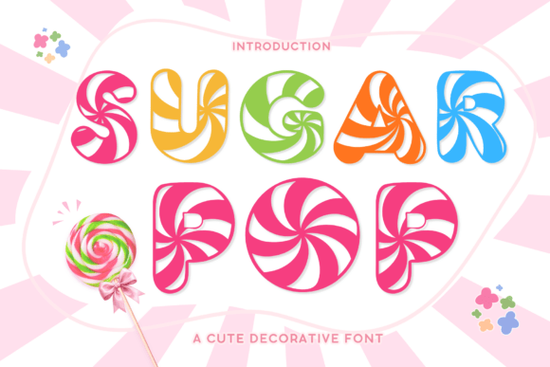
If you've been looking for a fun, candy-inspired typeface that brings instant personality to your designs, the Sugar Pop Font is worth a closer look. This playful display font draws inspiration from candy swirls and sweet treats, making it a solid choice for holiday crafts, kids' projects, party invitations, food packaging, and cheerful branding. Whether you're a crafter selling on Etsy or a small business owner creating marketing materials, this font adds a lighthearted, eye-catching touch without much effort.
What Makes the Sugar Pop Font Stand Out?
Plenty of decorative fonts claim to be "fun," but the Sugar Pop Font actually delivers on that promise. Its rounded letterforms and candy-like curves give it a distinctly sweet personality that works well at larger sizes. Unlike some overly stylized fonts that sacrifice readability, this one stays clear enough for titles, headers, and short text blocks.
Here's what you can expect:
- Bold, rounded characters that pop off the page
- A playful, whimsical style suited for lighthearted themes
- Works well for both print and digital projects
- Pairs nicely with simpler sans-serif or handwritten fonts for contrast
It's especially effective for designs targeting families, kids, or anyone who appreciates a bit of sweetness in visual branding.
Who Should Use This Font?
This font isn't limited to one type of creator. Here are a few people who could put it to good use:
- Print-on-demand sellers designing t-shirts, mugs, or tote bags with candy-themed or party-related graphics
- Small bakery owners creating logos, menu headers, or packaging labels
- Party planners and event businesses making invitations, banners, or signage
- Teachers and parents working on classroom decorations or birthday party materials
- Crafters who sell handmade cards, stickers, or scrapbook elements
If your work involves themes like birthdays, holidays, sweets, or anything kid-friendly, this font fits right in.
What Types of Projects Work Best With Candy-Style Fonts?
Candy-inspired typefaces like Sugar Pop are designed for display use meaning they shine in headlines, logos, and short bursts of text rather than long paragraphs. Here are some practical project ideas:
- Birthday party invitations Pair the font with colorful illustrations for instant charm
- Product packaging Great for candy shops, bakeries, or snack brands
- Social media graphics Use it for Instagram stories, sale announcements, or holiday posts
- T-shirt designs Especially for kids' apparel or novelty prints
- Sticker sheets Combine with cute illustrations for Etsy or Craftsy shops
- Greeting cards Valentine's Day, Easter, and Christmas cards benefit from a sweet typeface
The key is to not overuse it. Stick to one or two lines of text and let the font do the heavy lifting visually.
How Does It Compare to Other Decorative Fonts?
Each of these fonts serves a different creative need. Having a few of them in your toolkit means you're ready for a wider range of client requests or personal projects.
Tips for Pairing Sugar Pop With Other Fonts
A candy-style display font works best when balanced with something more neutral. Try these combinations:
- Sugar Pop + clean sans-serif: Use Sugar Pop for the headline and a simple font like Montserrat or Poppins for body text
- Sugar Pop + handwritten script: Layer it with a casual script for greeting cards or social posts
- Sugar Pop + bold slab serif: Create contrast for t-shirt designs or poster layouts
Avoid pairing it with another heavily stylized font two competing decorative styles can make a design feel cluttered and hard to read.
Is the Sugar Pop Font Worth Adding to Your Collection?
If you regularly work on seasonal crafts, kids' designs, or food-related branding, yes it's a practical addition. It fills a specific niche that more generic fonts can't match. The candy-inspired aesthetic is distinctive enough to make your designs memorable without feeling over-the-top.
That said, it's not an everyday font. You'll reach for it when the project calls for something sweet, playful, and colorful. For everything else, keep a few versatile options on hand.